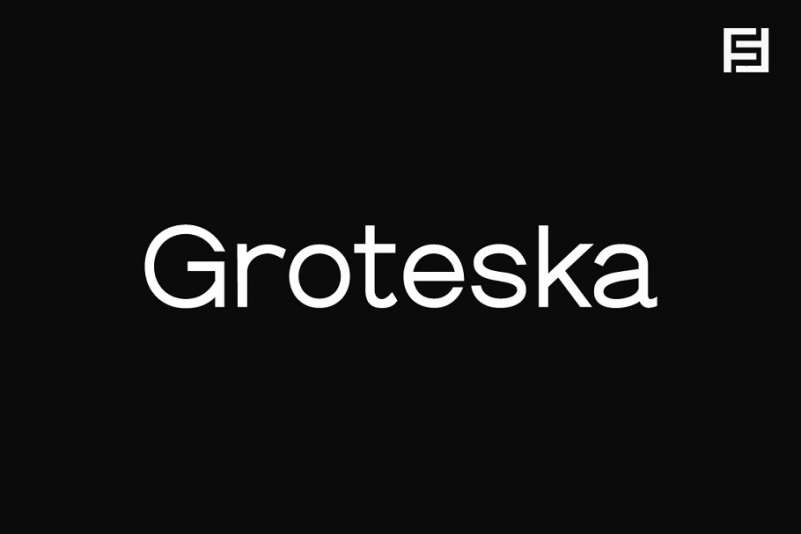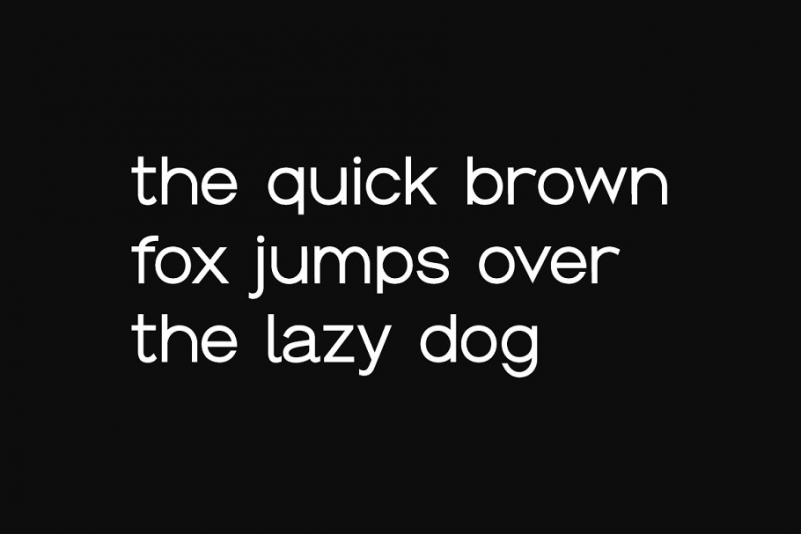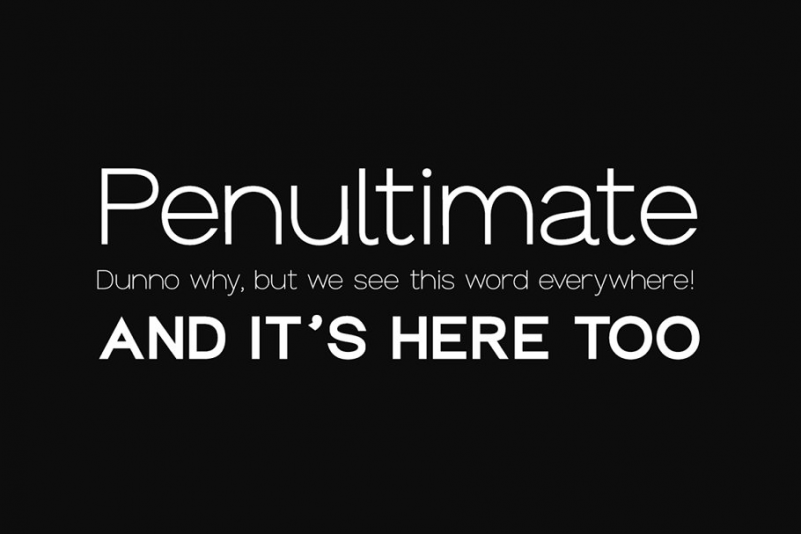
GROTESKA Font
Groteska is a modern & minimal sans-serif typeface inspired from some popular swiss typefaces, having traditional grotesque oriented type characteristics while being clean & minimalist by nature. The typeface comes with a total of 14 fonts spreading between 7 weights featuring 7 uprights and matching italics for each weights.